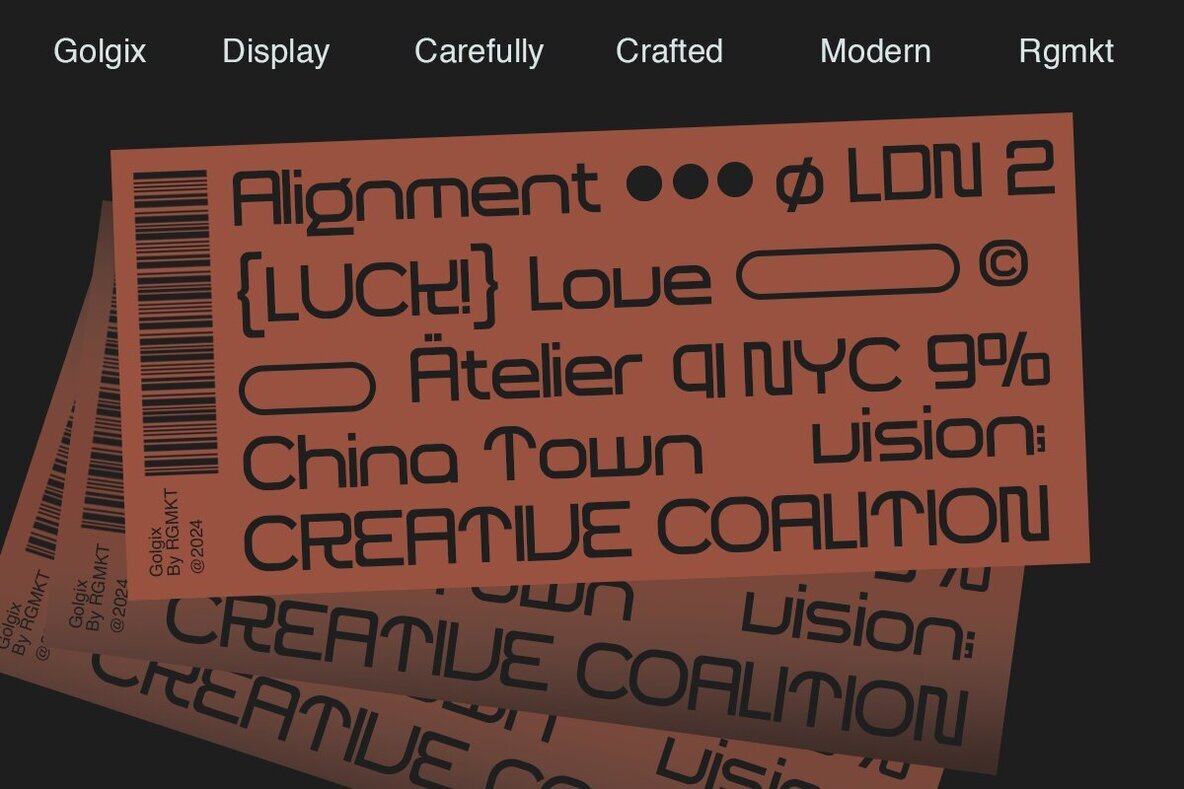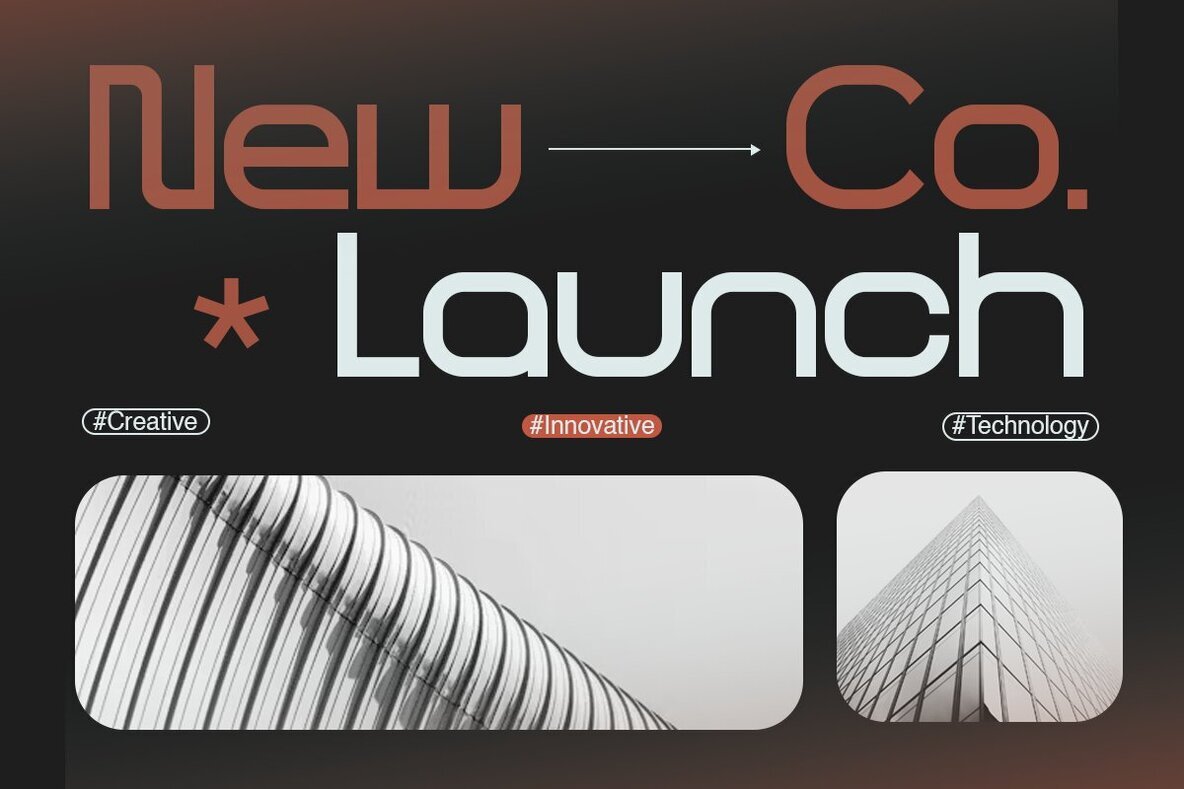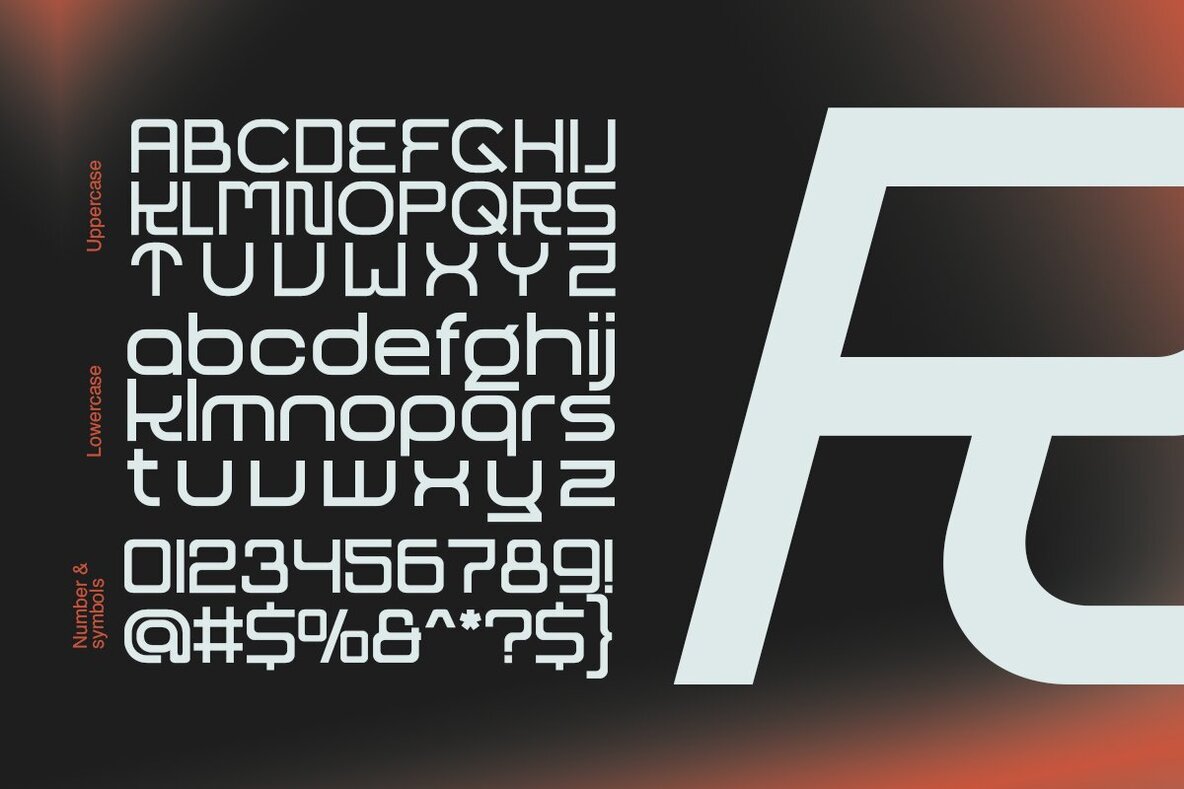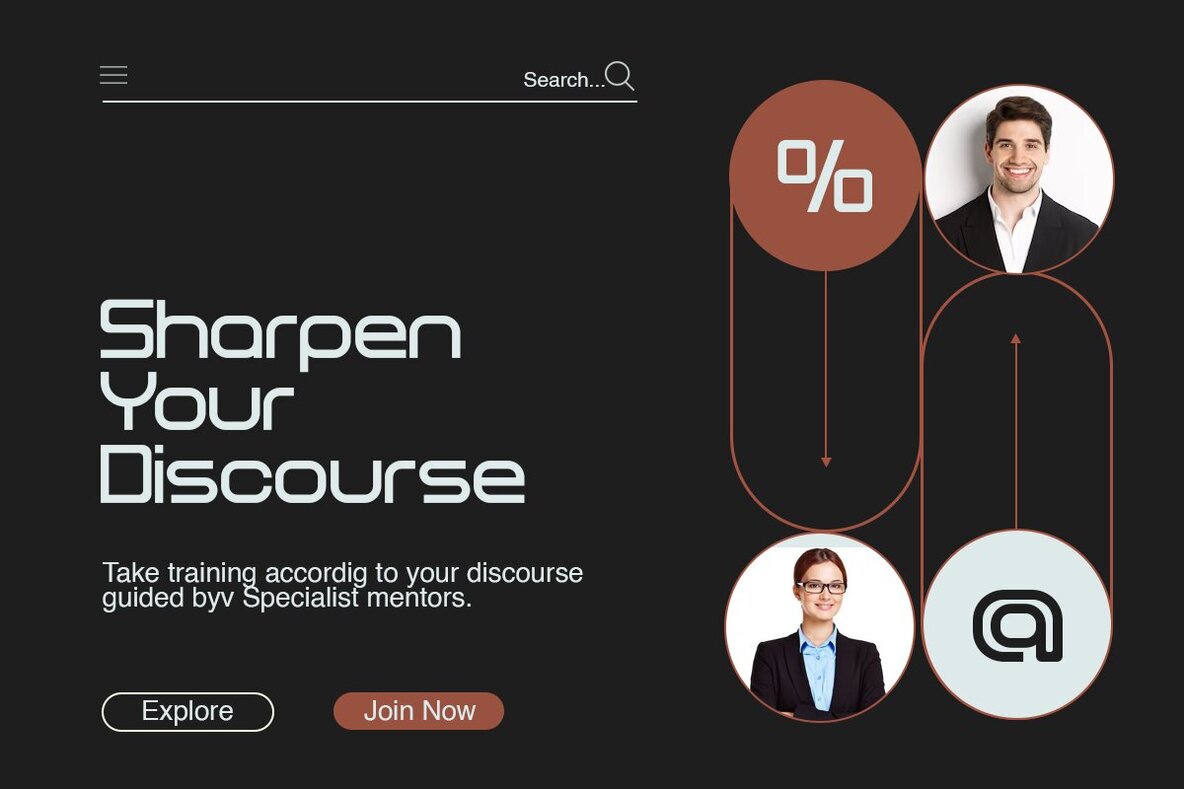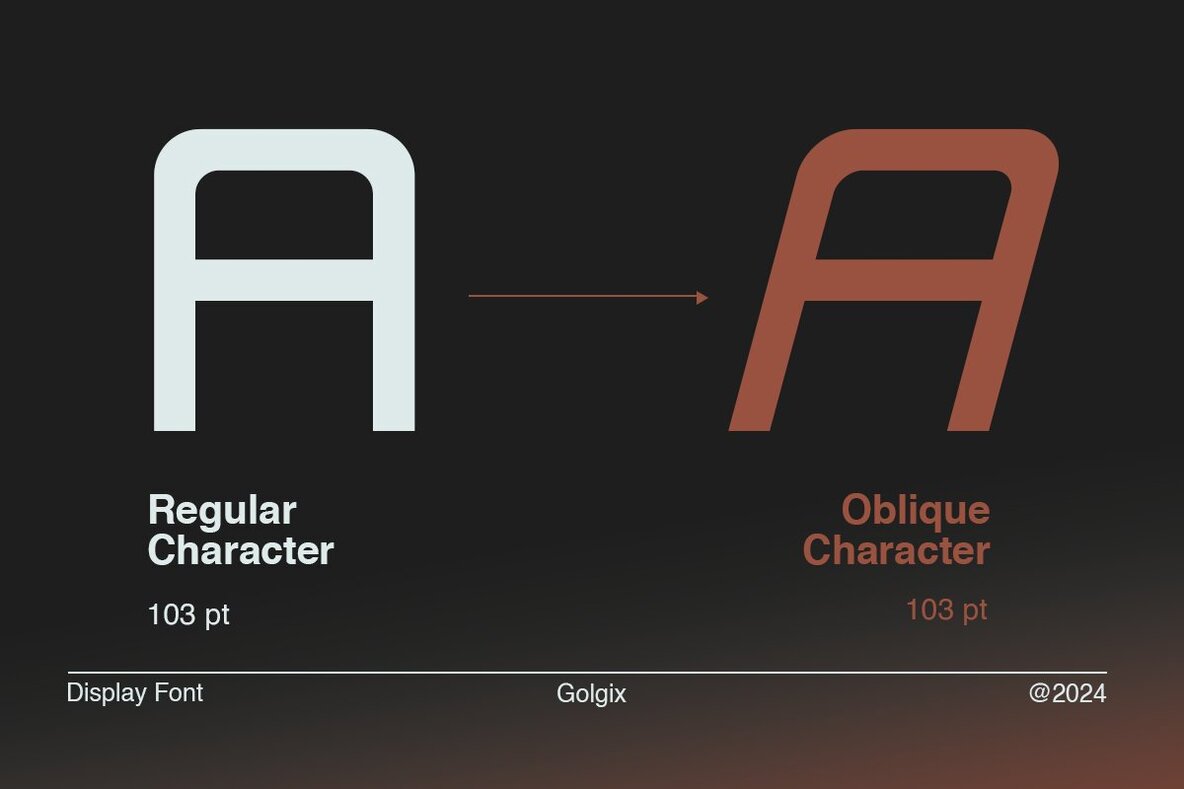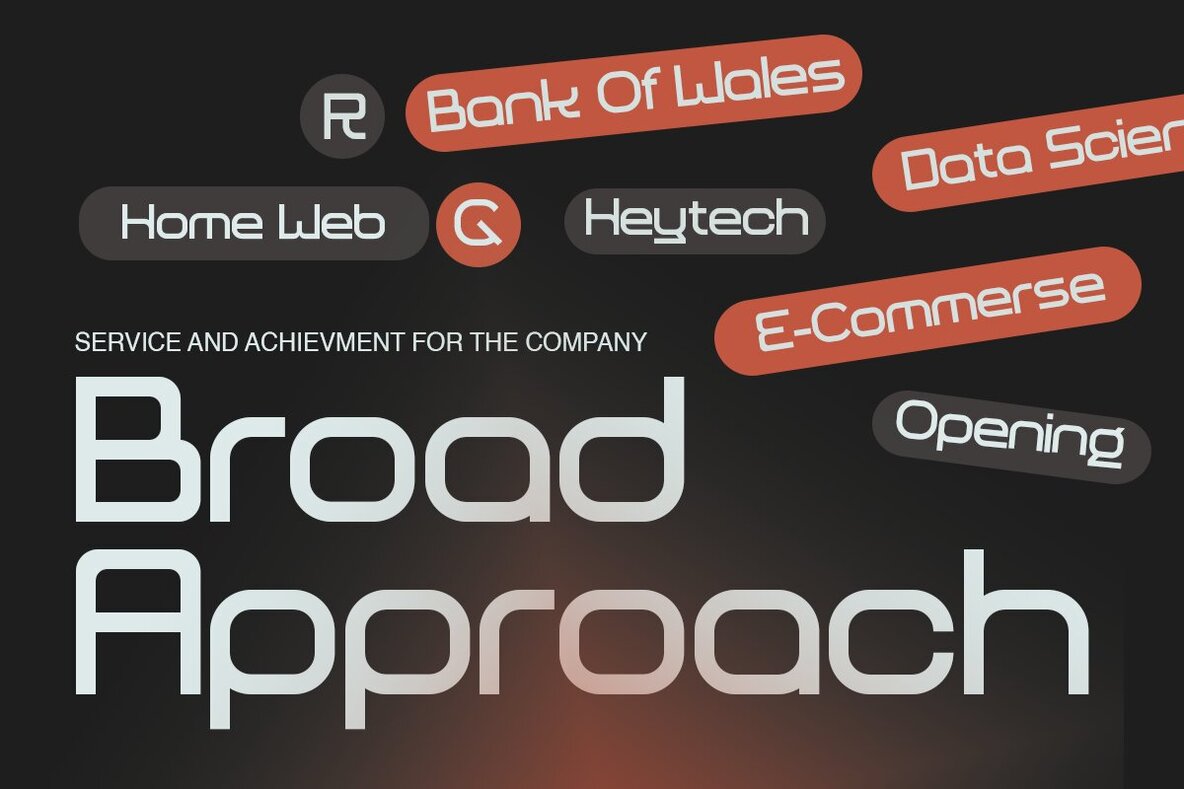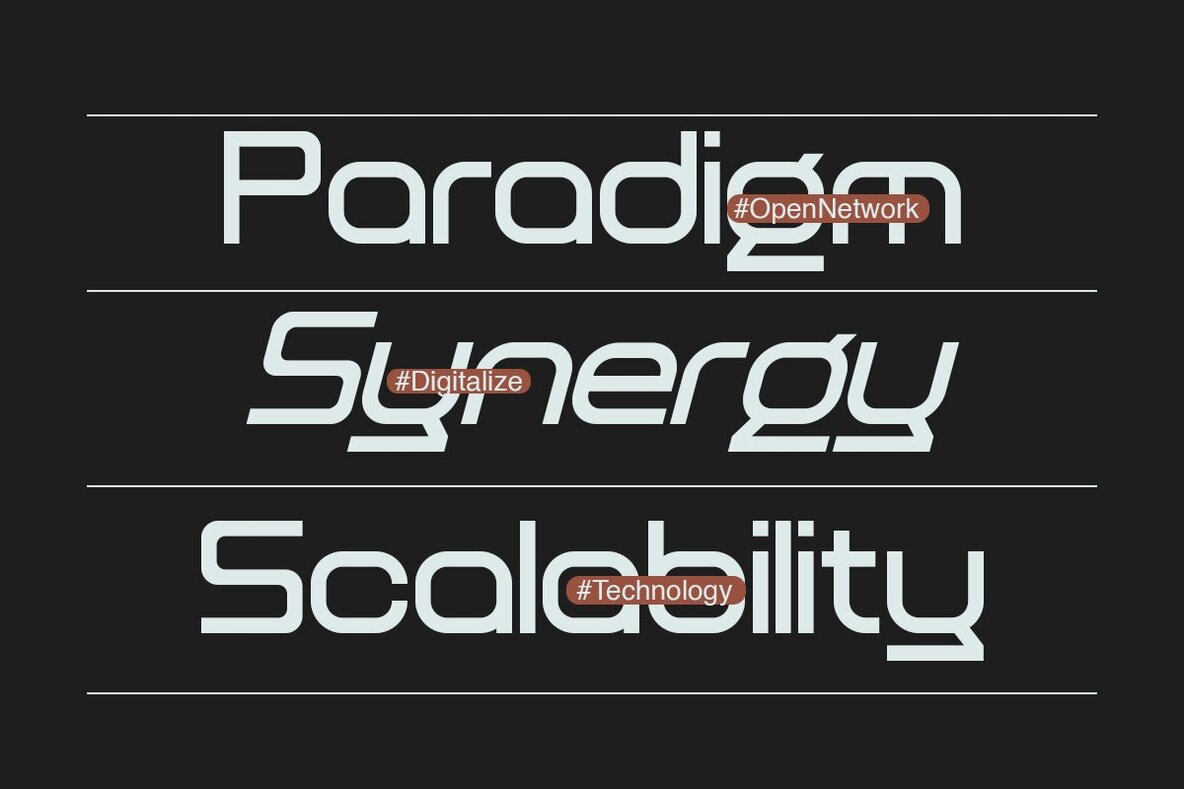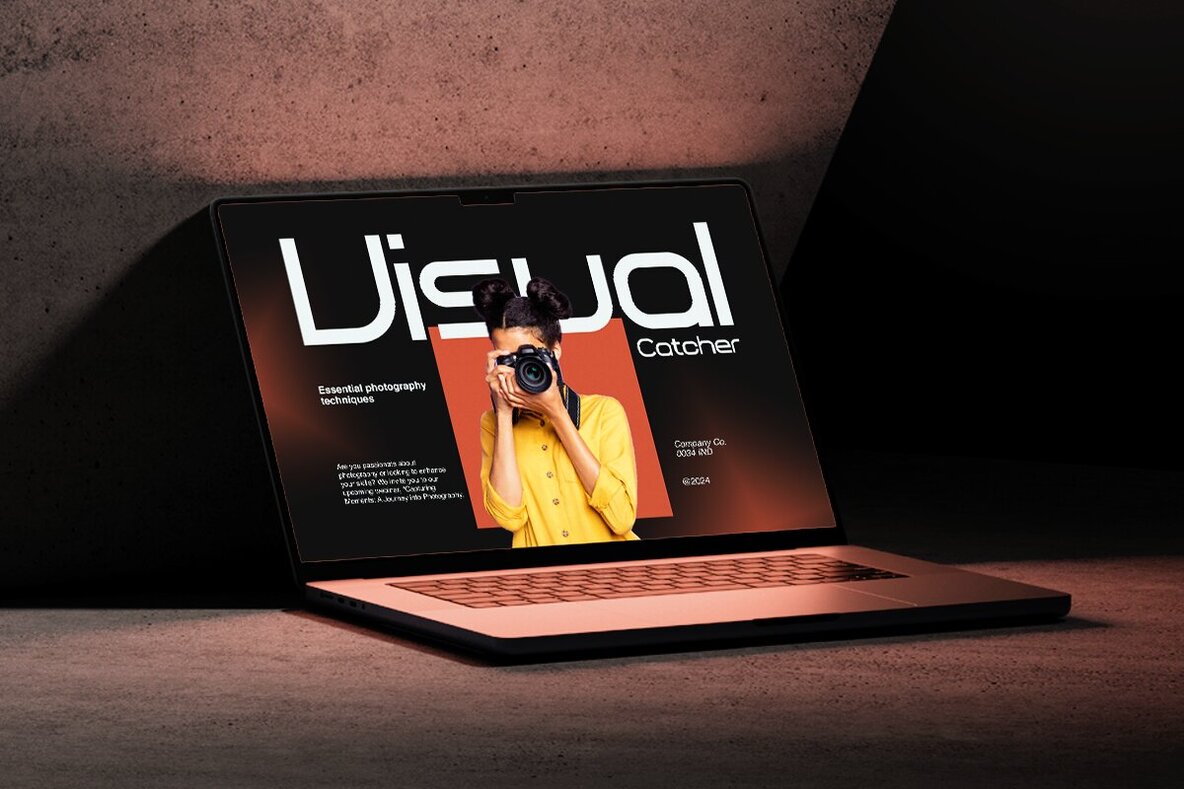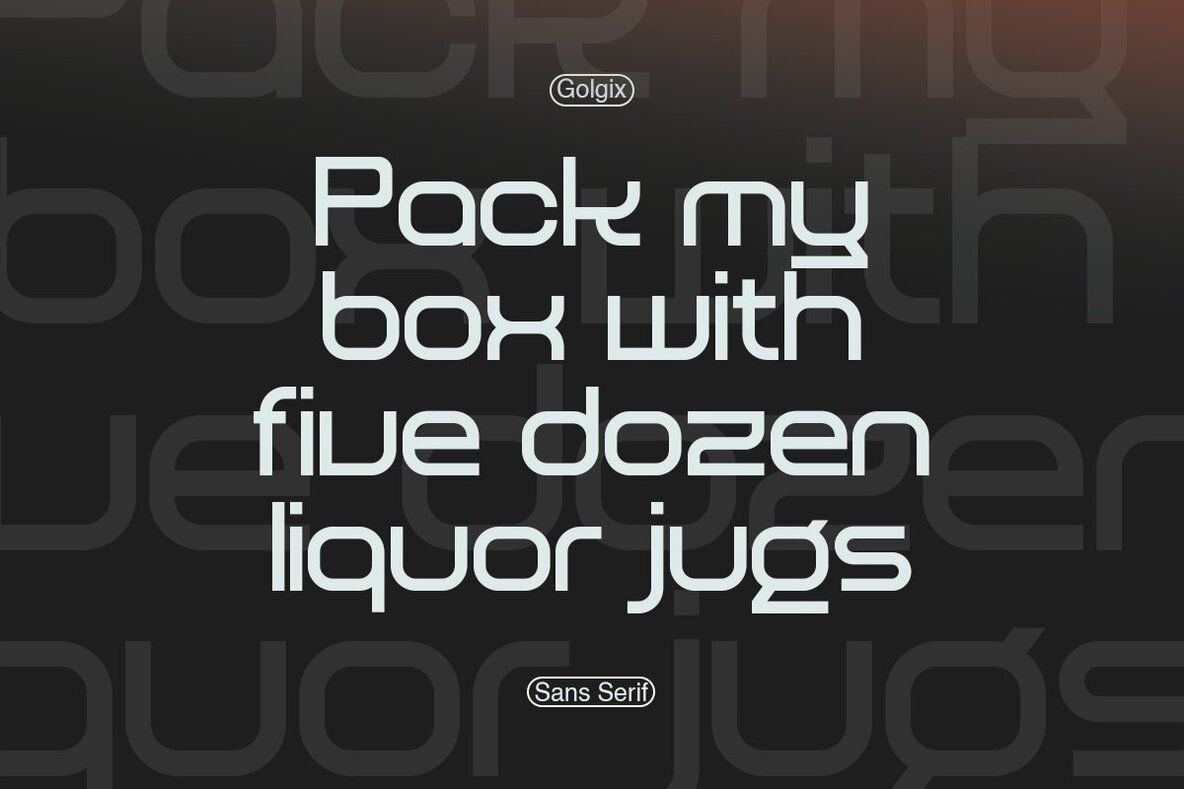
Golgix Font
Golgix is a modern corporate font designed for the digital age. Its futuristic and sleek style is perfect for branding, web design, tech projects, and more. The promotional graphic powerfully presents Golqix against a gradient background of dark tones and red-orange accents, creating a modern and dynamic atmosphere.
Golqix's versatile design makes it an excellent choice for various applications, including print materials, sci-fi design, and UI projects. Whether you're working on a marketing campaign or enhancing a user interface, this font's contemporary aesthetic will help redefine your digital creations. Explore the possibilities with Golgix and bring a modern edge to your designs.